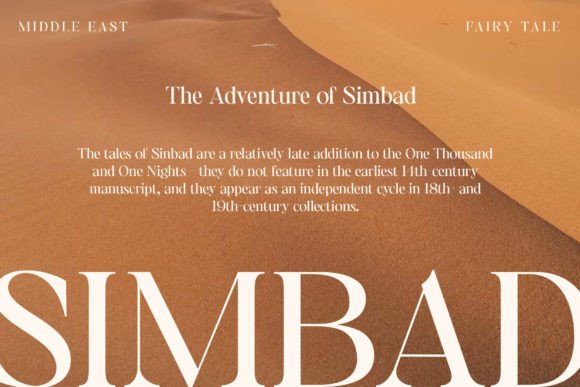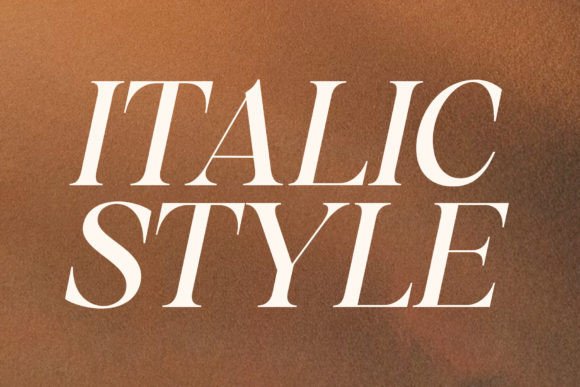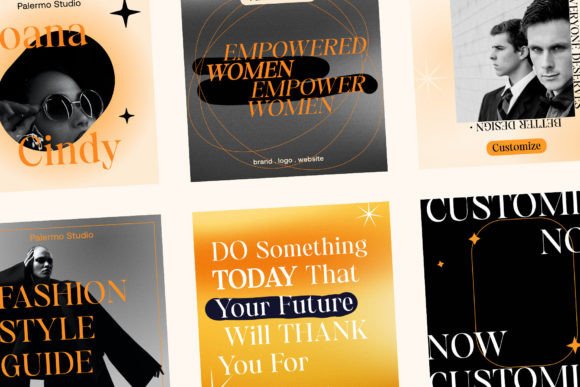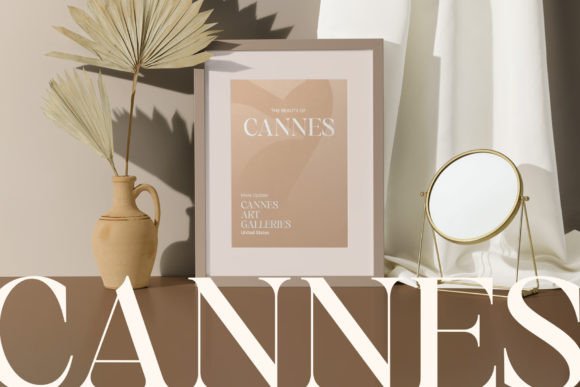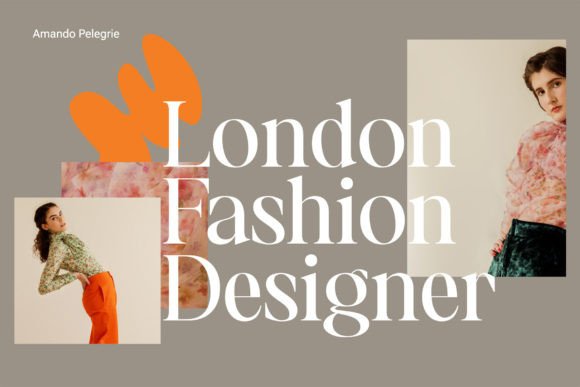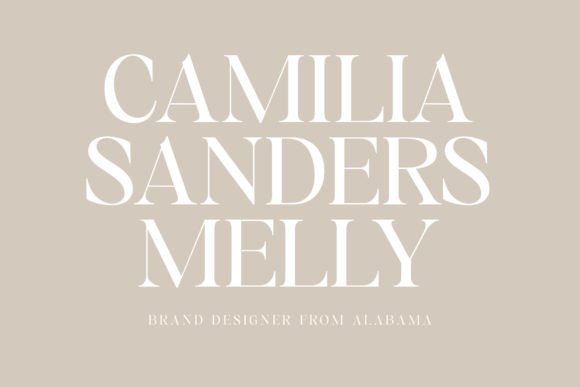
Introduction to Gamilia Font
Have you ever stared at a blank canvas, trying to find the perfect font to elevate your creative project? The search for the perfect typography can be daunting, but what if I told you there’s a font that can add a touch of sophistication to your designs? Enter the Gamilia Font, a stylish serif font that exudes elegance and refinement.
Whether you’re working on a greeting card, packaging design, or brand identity, Gamilia Font is the perfect design resource to make your project stand out. With its high-quality lines and transparent background, this font is ideal for any creative endeavor. As a valuable addition to your design toolkit, the Gamilia Font is free to download and play with, allowing you to experiment with its timeless style and make your designs truly eye-catching and trendy.
As a designer, you understand the importance of a well-chosen font in making your project shine. The Gamilia Font is a game-changer, offering a level of sophistication that’s hard to find in other fonts. So why settle for ordinary when you can have extraordinary? Give the Gamilia Font a try and elevate your designs to the next level.
Key Features of Gamilia Font
- High-quality font design with a transparent background, making it perfect for creative projects.
- Unique characteristics include a modern and elegant design, making it suitable for a wide range of creative projects.
- Can be used in various design applications, including logos, typography, and graphic design, due to its versatility and high quality.
Honest Review: Gamilia Font
The Gamilia Font is available in various weights and styles, making it a versatile design resource. The font is highly legible and works well in both body text and headings. ✨ I was particularly impressed with the transparent background option, which makes it easy to use in both digital and print designs.
- Highly legible and versatile
- Available in various weights and styles
However, I did notice a few limitations. ⚠️ The font is not as extensive as some other fonts I’ve used, and the character set is limited. Additionally, the font doesn’t support some of the more advanced typography features that I’m used to working with.
Overall, I was impressed with the Gamilia Font. While it’s not perfect, it’s a solid design resource that I would recommend to designers working on a creative project. With a little creativity, you can get some great results with this font.
To get the most out of the Gamilia Font, experiment with different font sizes, colors, and combinations to create unique and eye-catching designs. You can also use it in conjunction with other design elements to create a cohesive look.
The Gamilia Font is suitable for various creative projects, including logos, graphics, presentations, and documents. It’s perfect for designers, marketers, and anyone looking for a high-quality design resource.